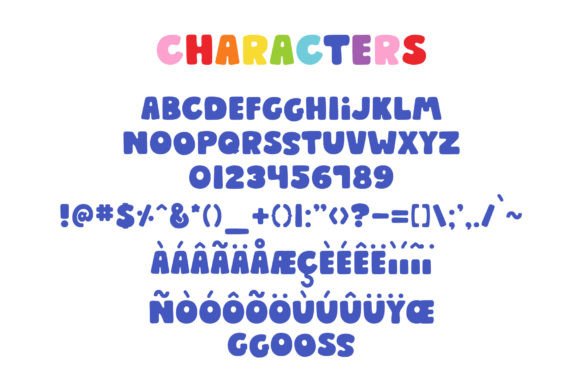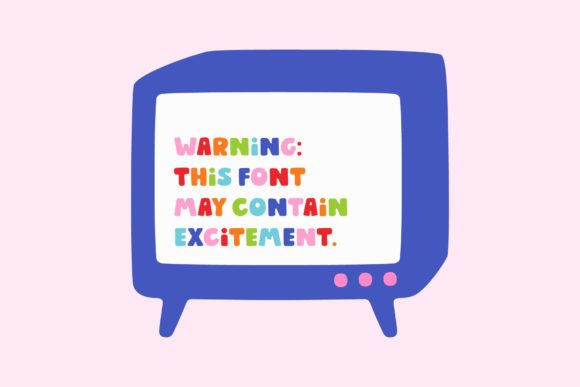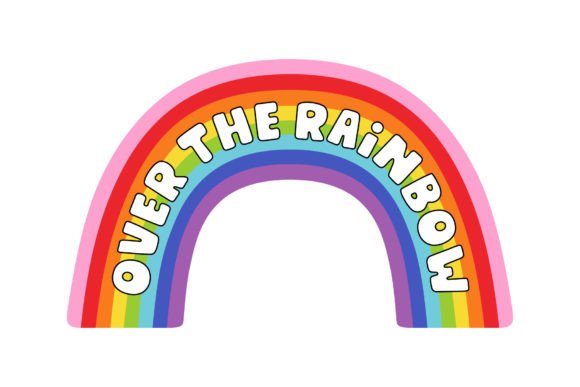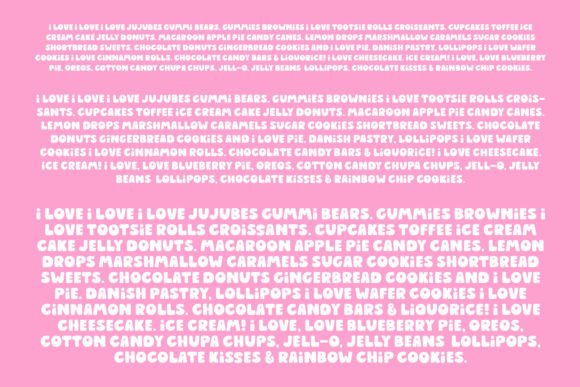
The Groovy Giggles Font: Adding a Touch of Whimsy to Your Designs
I’ll never forget the time I was working on a children’s book project, and I just couldn’t find the right font to bring the story to life. The client wanted something playful, fun, and engaging, but not too over-the-top. I spent hours scouring the internet, trying out different fonts, but nothing seemed quite right. That was until I stumbled upon the Groovy Giggles font. It’s been a game-changer for me ever since, and I’m excited to share it with you!
A Personal Review of Groovy Giggles
So, what makes Groovy Giggles so special? Let’s dive into the good stuff! 😊
- ✨ Playful and fun design that’s perfect for kids’ projects, invitations, and more
- ✅ Quirky details that add a touch of personality to any design
- 💫 Highly legible, even at smaller font sizes
- 🎉 Works beautifully in both digital and print formats
While Groovy Giggles is an amazing font, there are a few things to keep in mind:
- 🤔 May not be the best choice for very formal or professional projects
- ⚠️ Some characters may not work well in all contexts (e.g., @ symbol)
The Designer Inspiration Behind Groovy Giggles
Groovy Giggles was designed with one goal in mind: to bring a touch of playfulness and whimsy to your designs. The designer, a self-proclaimed font enthusiast, wanted to create a typeface that would make people smile. With its lively shapes and quirky details, Groovy Giggles is sure to do just that.